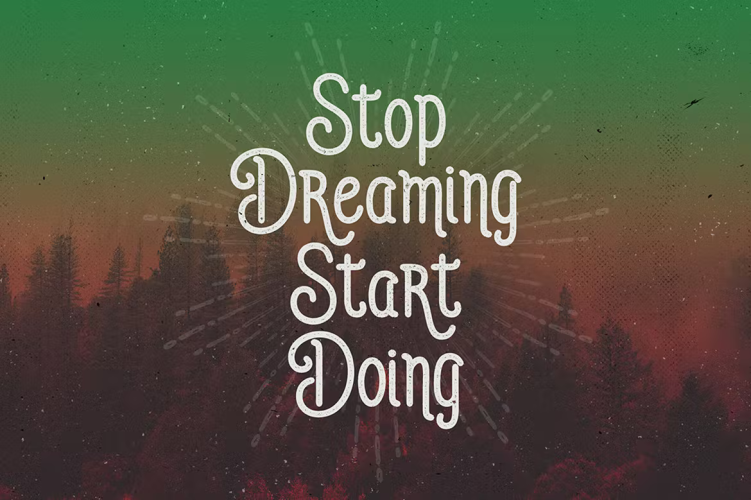
Auther Typeface Font
Auther Typeface is modern & vintage monoline display typeface, combination with classic & modern style typeface. OpenType features with Stylistic Alternates and ligatures.You can use this font for various purposes.such as logo, wedding invitation, t-shirt, posters, lable, greetingcard, letterhead, book cover etc.
Where Auther Typeface Font works best
Reports, white papers and book interiors hold the eye longer when the text face has real serifs; Auther Typeface Font keeps that rhythm without looking old-fashioned.
Food, spirits and cosmetics brands lean on serif wordmarks to suggest age and care. Auther Typeface Font gives that signal at wordmark size.
Set Auther Typeface Font for the body of an award or a diploma and keep the recipient name in a script; the pairing is what makes a document feel official.
What kind of work does Auther Typeface Font suit?
It sits in the Serif Fonts group and reads as branding, classic, display, modern. That makes it a candidate wherever those qualities help: headings, packaging, social graphics and brand work. Set it at the size you plan to use before deciding.